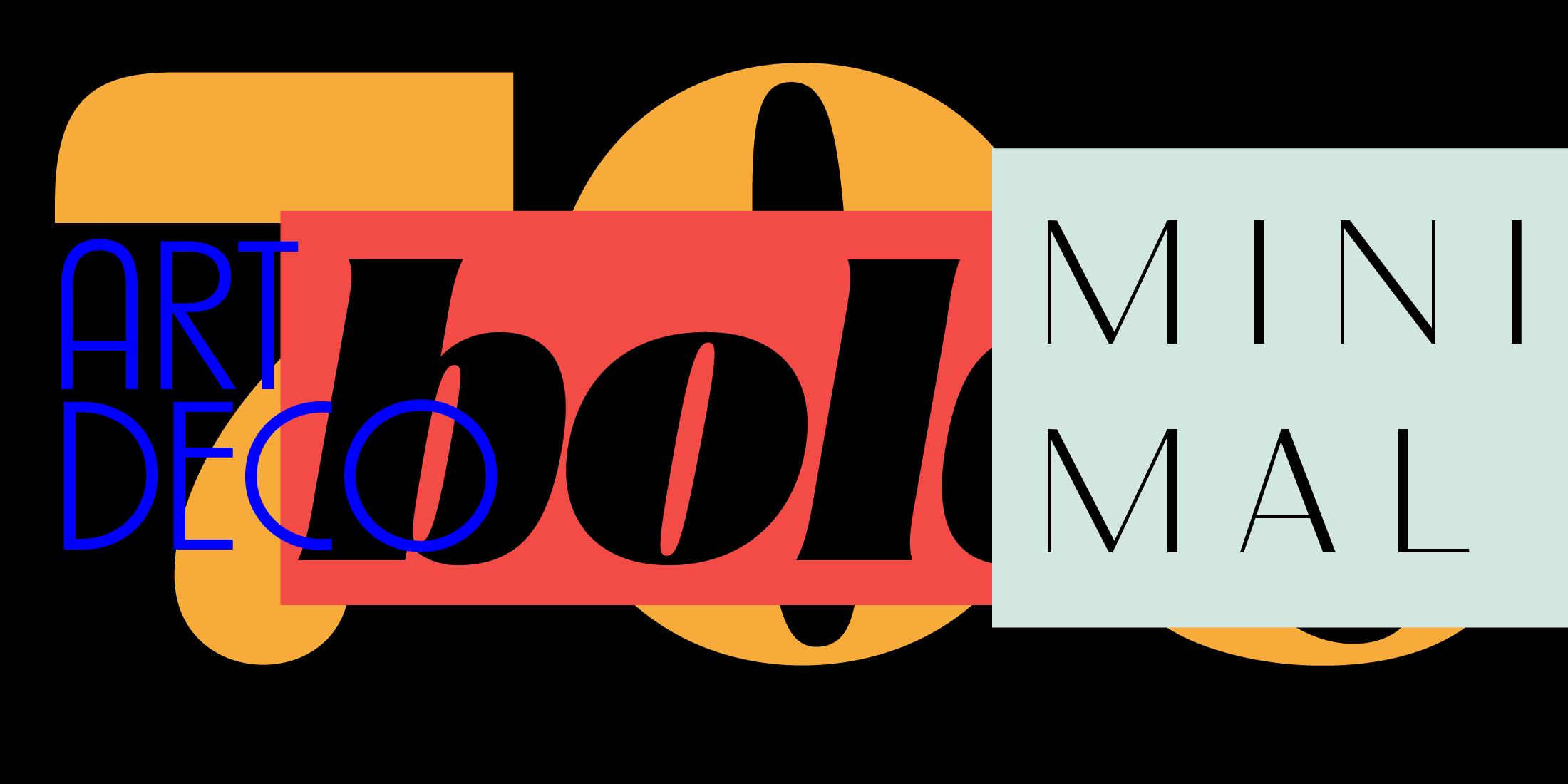
The Evolution of Fonts by Decade
From Art Deco to Today
Type design history doesn’t move in clean steps. Some decades have a clear visual identity, others feel like a mishmash. The easiest way to see the progression is not in type specimens, but in print ads and their headlines, where proportions and spacing reflect the zeitgeist.
1930s: Late Art Deco
Art Deco type is exact, refined, elegant.
Letters tend to be tall and narrow, often tightly spaced and set in uppercase. Crossbars sit unusually high or low. Overall geometric feel.
The tone is formal. The goal is clarity and elegance with a bit of sharp control.
1940s: Transition
The 1940s ease that rigidity without completely letting go of it.
Proportions are still somewhat condensed, though less exaggerated. Decorative details begin to recede. The overall impression becomes more practical.
You start to see mixed case more regularly, though uppercase still carries much of the weight in headlines.
1950s: Opening Up
By the 1950s, the shift is more noticeable.
Letters widen, spacing loosens, stroke contrast evens out. The strict geometry of earlier decades softens into something more accommodating.
Mixed case becomes standard. There is a sense that type is no longer trying to impress, but to be read.
1960s: Structure, Refined
The 1960s bring a different kind of discipline.
Sans serif typefaces take center stage, often grounded in geometric or neo-grotesque systems. Proportions aim for balance, extremes are avoided.
Layouts rely on grids. Tracking opens slightly. Lowercase dominates, especially in editorial contexts.
This is where modern typography, as we know it, starts to lock in.
1970s: A Break in Tone
The following decade moves away from that restraint.
Weights increase. Corners round out. Spacing tightens again, but now in service of expression rather than control.
Display type becomes more prominent. Letterforms carry mood. Precision gives way to character.
1980s: Compression and Scale
In the 1980s, type becomes more forceful.
Headlines are often tightly set, sometimes aggressively so. Proportions swing between narrow and extended. Heavier weights are common.
Uppercase returns in a pronounced way. The page becomes denser. Type is used to compete for attention rather than organize it.
1990s: Digital Interference
The 1990s introduce a different kind of shift.
With digital tools becoming widely available, type begins to fracture. Spacing becomes irregular. Letterforms distort, overlap, or resist alignment altogether.
Consistency is no longer a given.
2000s: Return to Neutral
After that, typography settles.
Sans serifs become more humanist. Proportions feel familiar, almost invisible. The focus moves toward clarity, especially on screens.
Spacing normalizes. Layouts become functional. Type steps back.
2010s: Reduction
The 2010s simplify further: minimalism takes over.
Geometric sans serifs reappear with renewed focus. Lighter weights are widely used. Tracking opens up, particularly in uppercase settings.
Design relies more on spacing and less on form. The effect is controlled, sometimes to the point of restraint.
2020s: Deliberate Contrast
Recent work feels less tied to a single direction.
Designers often begin with a neutral base and introduce a specific deviation. That might be a sharp cut, an unusual proportion, or a subtle irregularity.
Contrast returns, but it is measured. Tight and wide spacing coexist. Serif and sans serif are combined within the same system.
The question is less about style, more about design intent.
Copy the Look
If you are trying to recreate a certain decade in your designs, focus less on the font name and more on how it is set.
1930s: Art Deco
Tall, condensed letters. Tight spacing. Mostly uppercase. Push crossbars high or low if the font allows it.
1950s and 1960s: Midcentury
Wider proportions. More open tracking. Mixed case. Keep stroke contrast low and spacing comfortable.
1970s
Heavier weights. Rounded shapes. Slightly tighter spacing again. Let the letters feel soft and full.
1980s
Go tighter. Use heavier weights. Try all caps. Compressed headlines and very wide settings both fit the period.
1990s
Break the rules. Mix spacing. Distort slightly. Combine styles if needed. Clean is not the goal.
2000s
Bring everything back to neutral. Regular widths. Standard spacing. Focus on readability.
2010s
Light weights. Wide tracking. Clean geometric forms. Use space as the main design element.
Now
Start clean, then introduce one deliberate twist. A sharp detail, unusual proportion, or contrast in spacing.